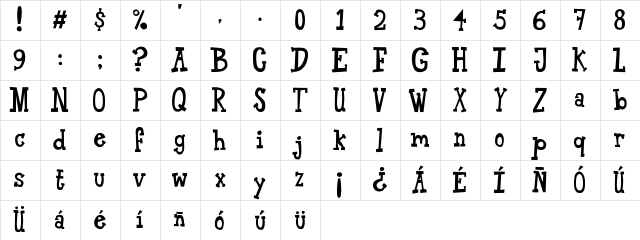
Alan Font Regular
Design Context for Alan Font
Alan Font is a composed and adaptable typeface that performs quietly and consistently across a wide range of design contexts.